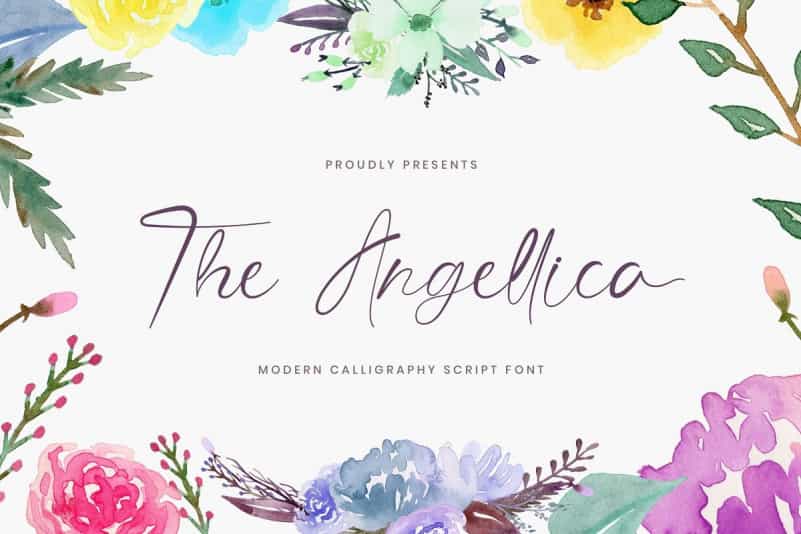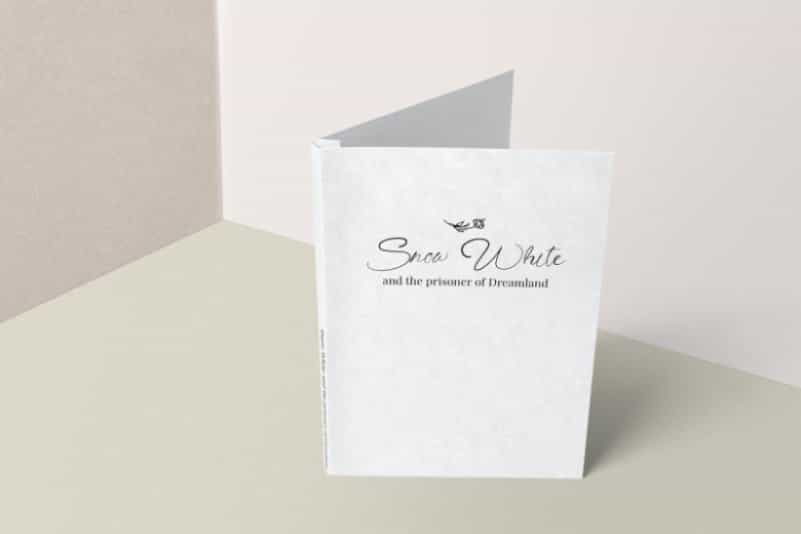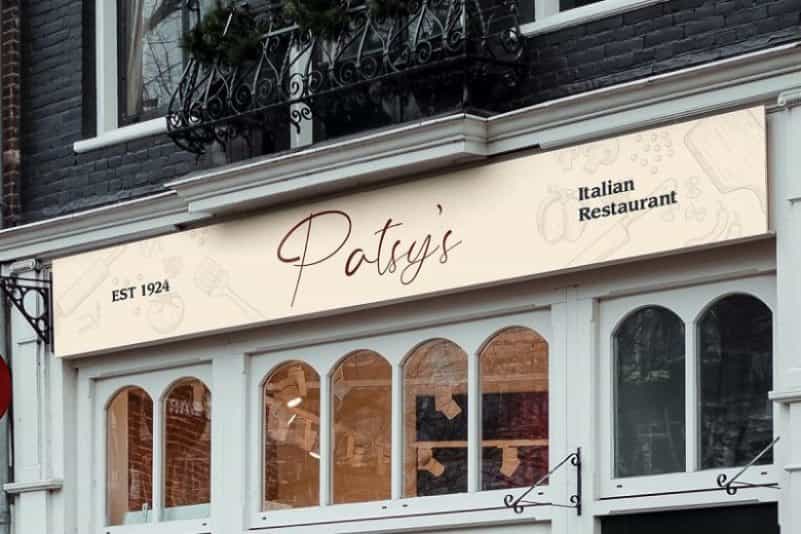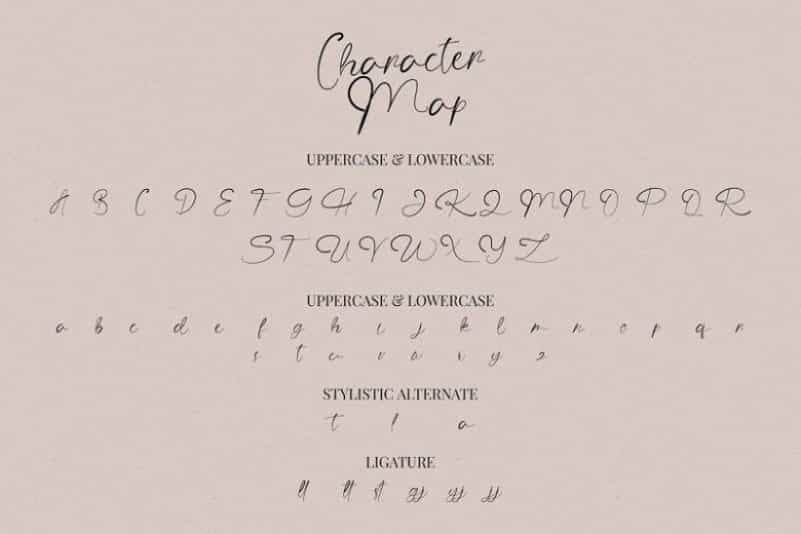
The Angellica is a Calligraphy Script Font with Casual Style. This font is just the ideal one for fashion brand, wedding invitation, business card, logo brand, signature and even calligraphy. This Font Template has the qualities of Classy, Elegant, Creative and Cool. Besides this it also has a Unique Concept.